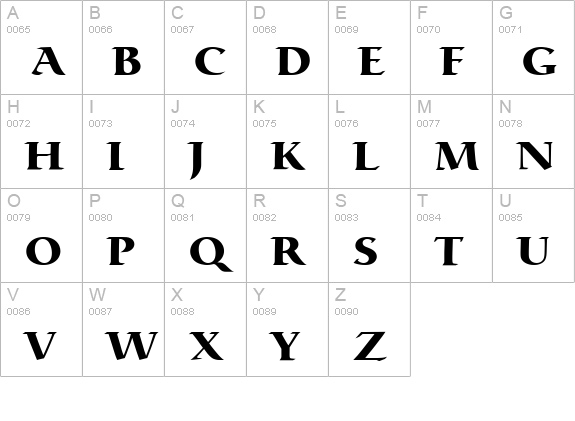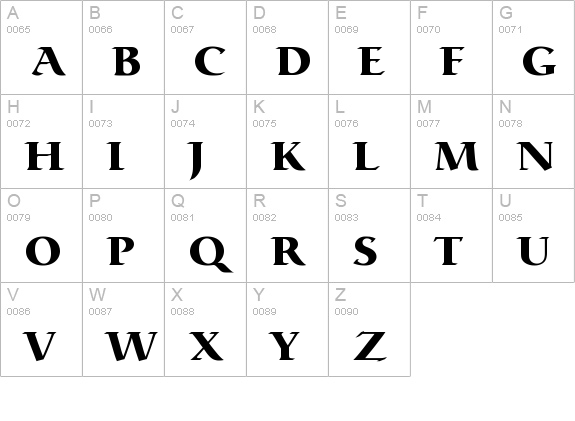
Catull Bold Font Details
Catull Bold is a strong, high-contrast variant in the Catull typeface family \xE2\x80\x94 well suited to headlines, attention-grabbing titles, and strong calls-to-action.
Catull Bold is a striking and elegant typeface that exudes sophistication and style. Its bold and distinct letterforms make it perfect for grabbing attention and adding a touch of class to any design project. This versatile font is ideal for headlines, logos, posters, and more, thanks to its strong presence and legibility. What sets Catull Bold apart is its classic yet modern aesthetic, making it a timeless choice for a variety of applications. Whether you're looking to create a memorable brand identity or elevate your print materials, Catull Bold is sure to make a statement. Best of all, Catull Bold is available for free download at FontsMarket.com, making it accessible to designers and creatives looking to enhance their work without breaking the bank. Don't miss out on the opportunity to add this stunning font to your collection and take your designs to the next level.